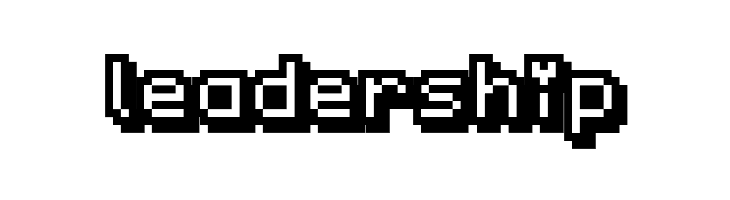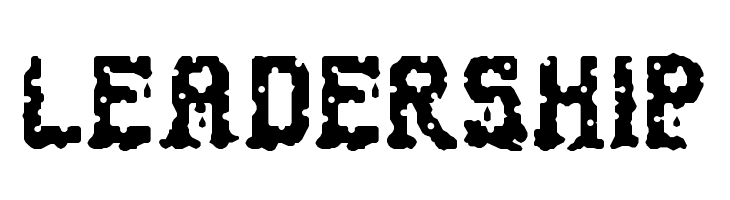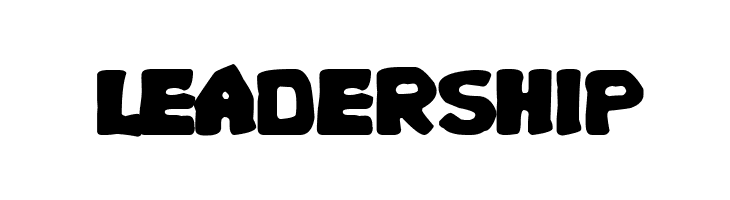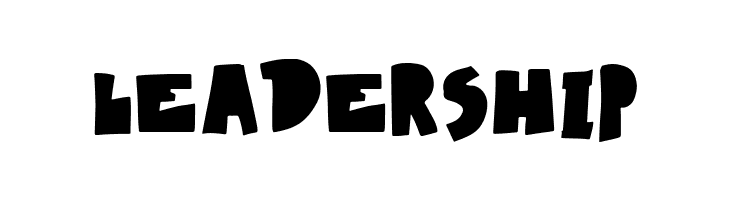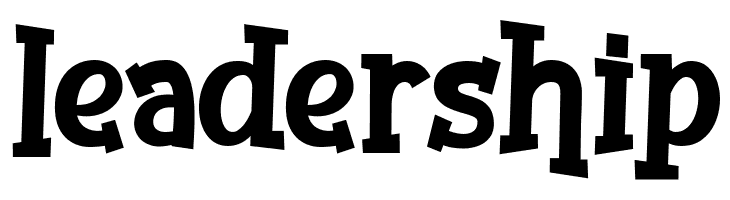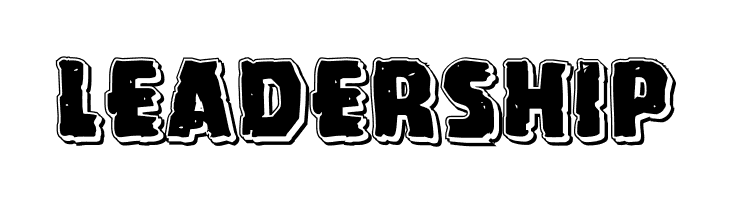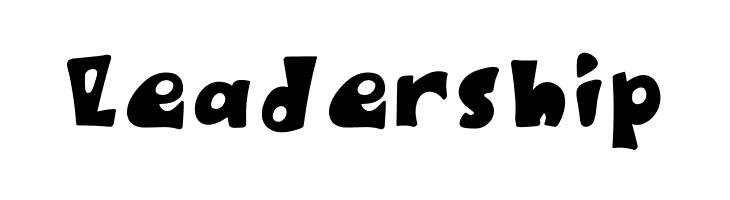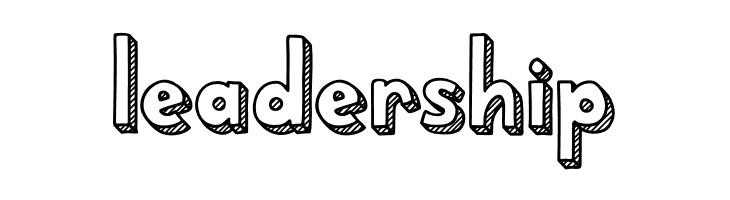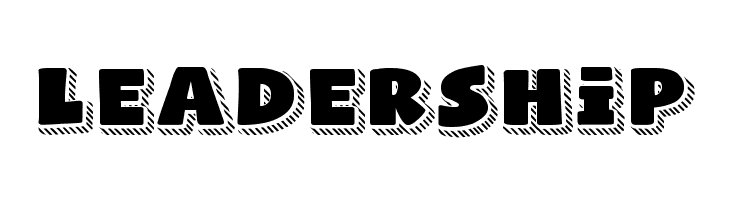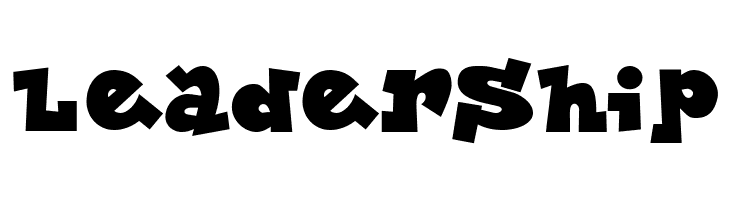
A bold, playful font with star-shaped cutouts and a futuristic, space-themed design.
A playful, jagged font with a hand-cut, artistic style.
A bold, playful font with a hand-drawn, irregular style.
A bold, retro, pixelated font with a strong, blocky design.
A bold, playful, and hand-drawn font with a whimsical style.
A playful, hand-drawn style font with bold, irregular characters.
A bold, pixelated outline font with a retro digital aesthetic.
A bold, playful font with a 3D block-like appearance.
A playful, cheese-inspired font with bold, irregular outlines and cutouts.
A bold, playful font with a shadow effect, perfect for eye-catching designs.
A bold, rounded font with a playful, three-dimensional contour.
A bold, distressed font with a playful, rustic style.
A bold, organic font with a hand-carved, rustic appearance.
A bold, playful font with a cartoon-like, exaggerated serif style.
A bold, playful font with exaggerated curves and a whimsical style.
A playful, hand-drawn font with bold outlines and diagonal hatching.
A bold, shadowed font with a playful, three-dimensional style.
A bold, outlined, and playful font perfect for festive themes.
A bold, italicized font with a geometric and dynamic style.
A playful, bold, hand-drawn font with a whimsical and organic style.
A bold, playful font with rounded, bubbly characters perfect for fun and whimsical designs.
A bold, playful font with thick, rounded characters and a modern, decorative style.
A bold, rounded font with a playful, retro vibe.
A playful, pixelated font with a retro video game aesthetic.
A bold, playful font with a distressed, hand-cut appearance.
A bold, playful font with thick, rounded letters and a hand-drawn feel.
A bold, playful font with a 3D shadow effect and cartoonish style.
A bold, playful font with thick, irregular strokes and a hand-drawn feel.
A bold, playful font with thick, rounded characters and a whimsical style.